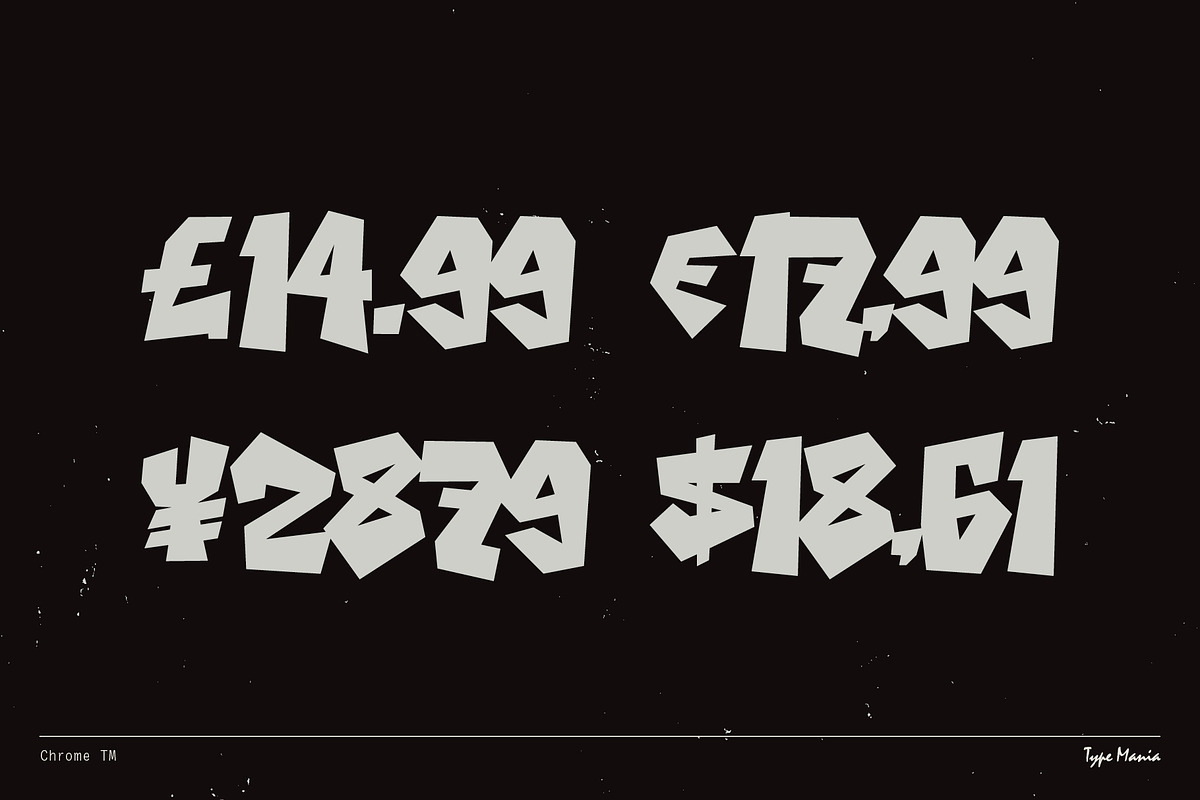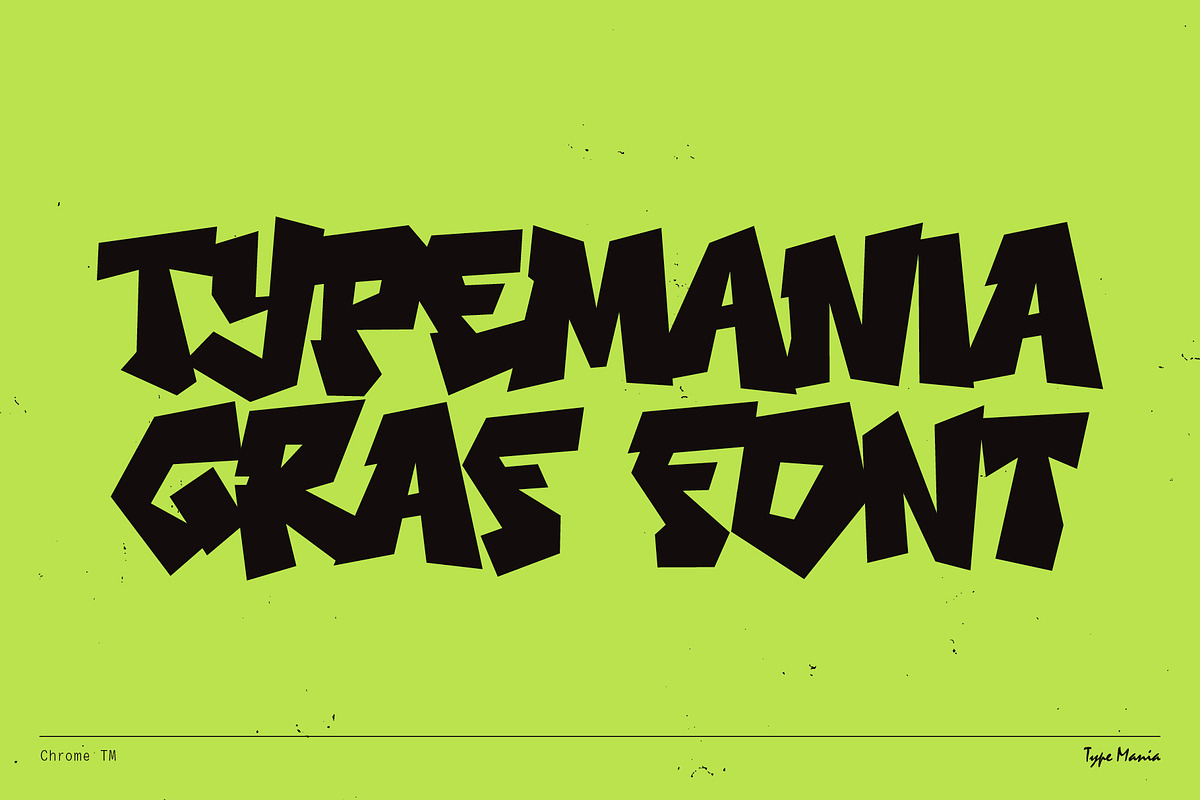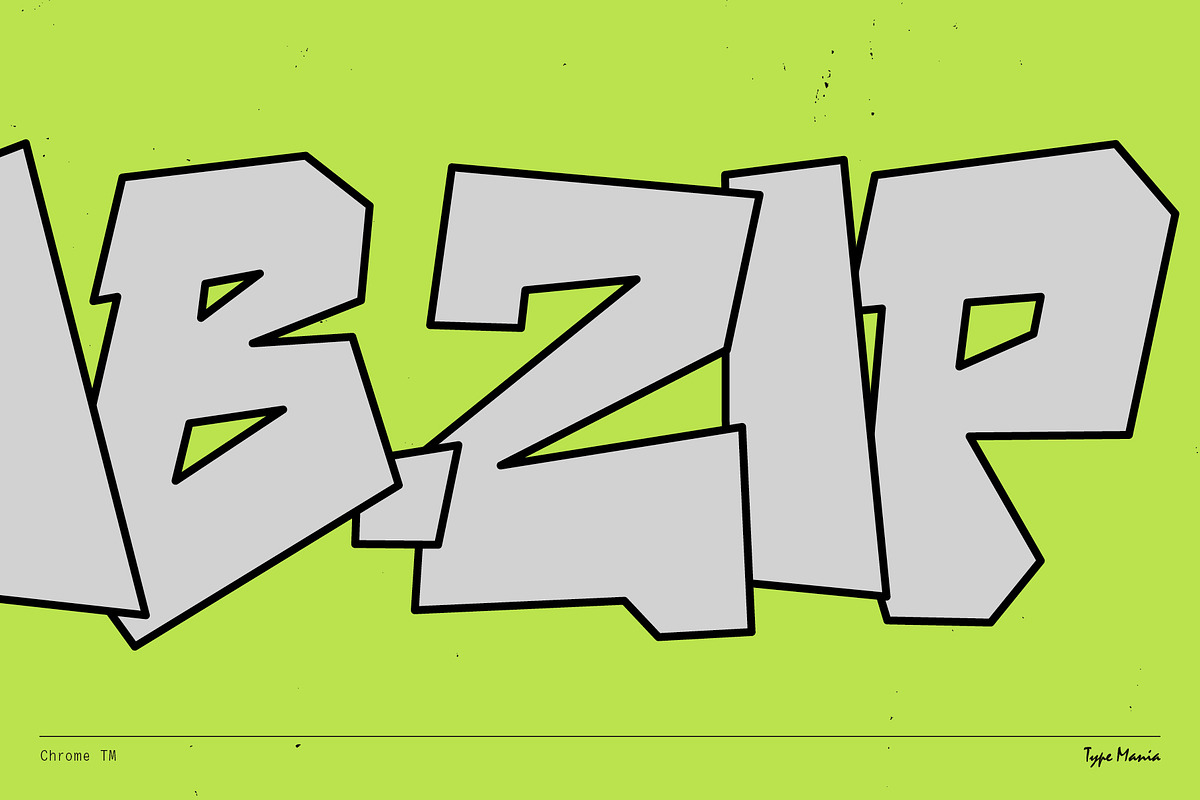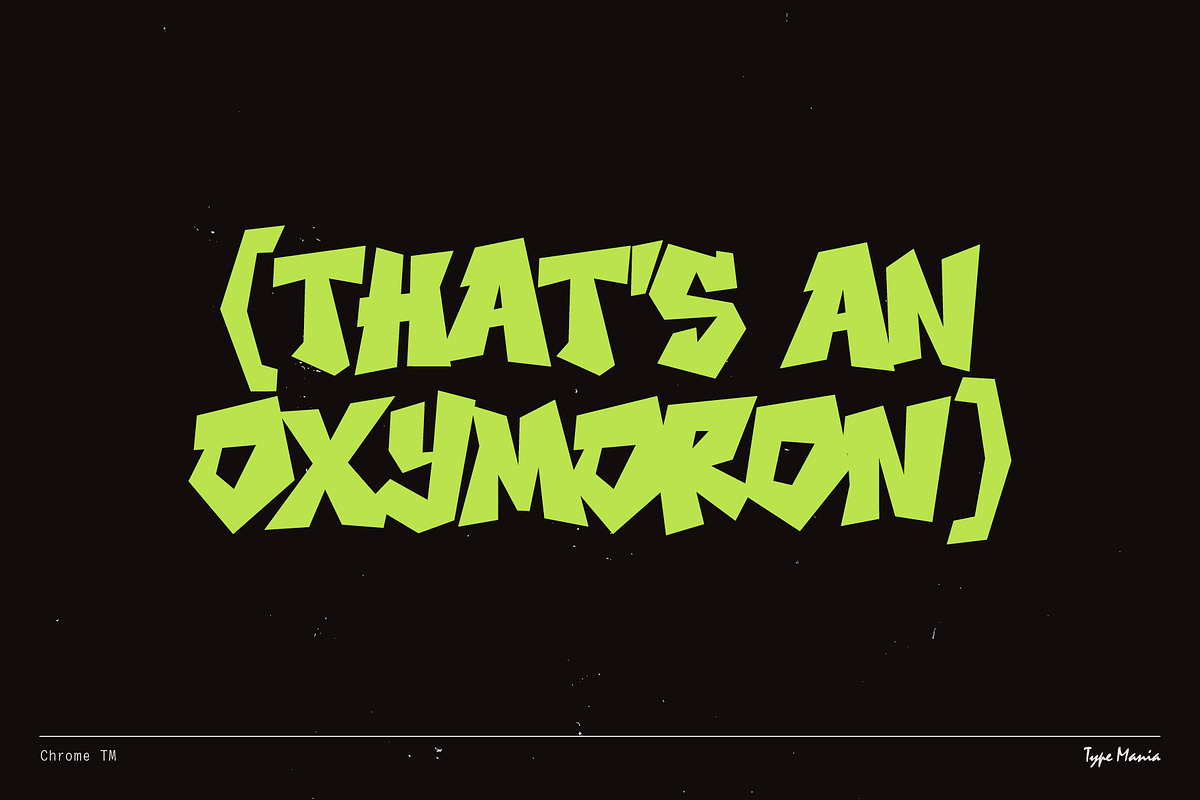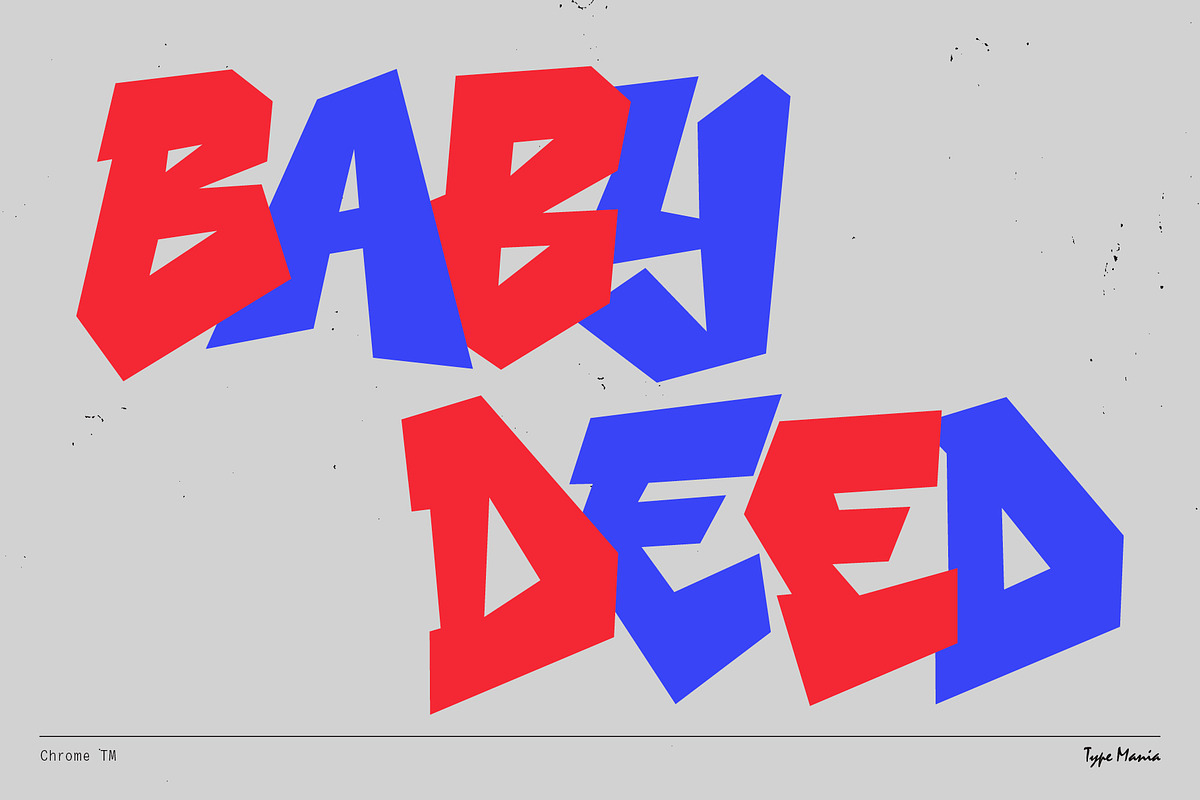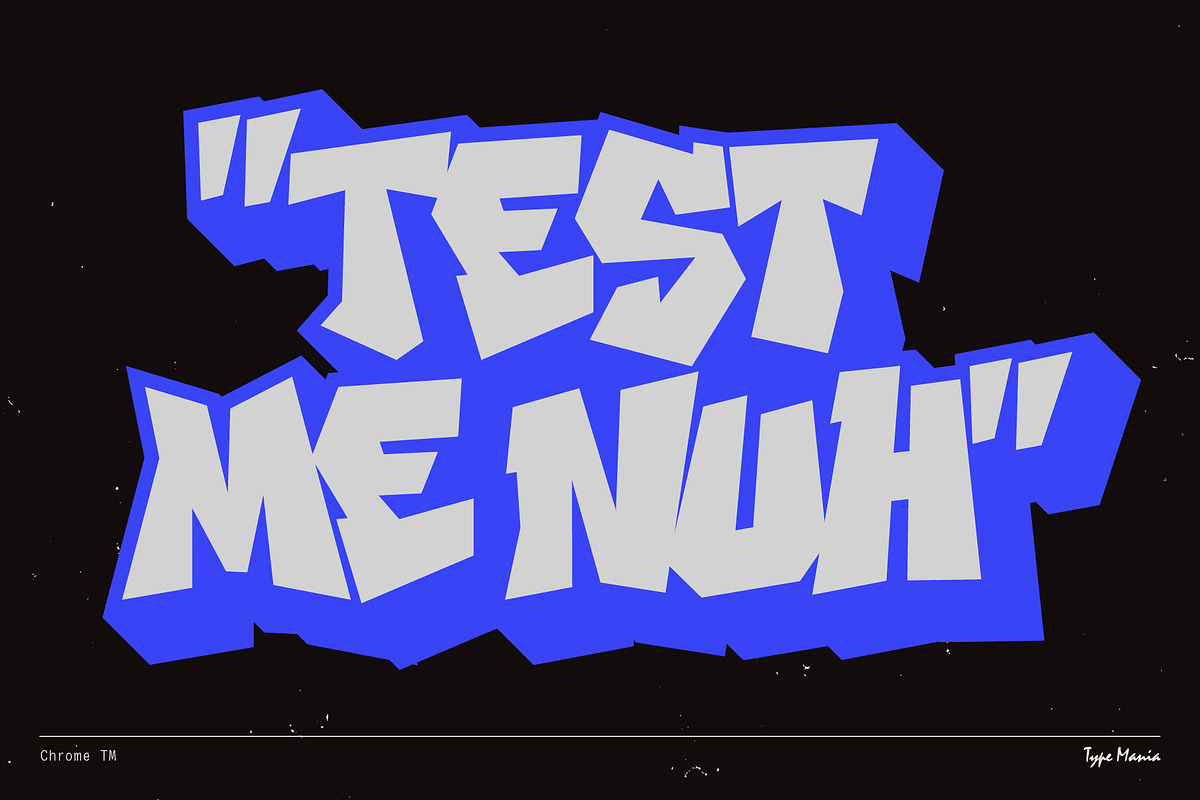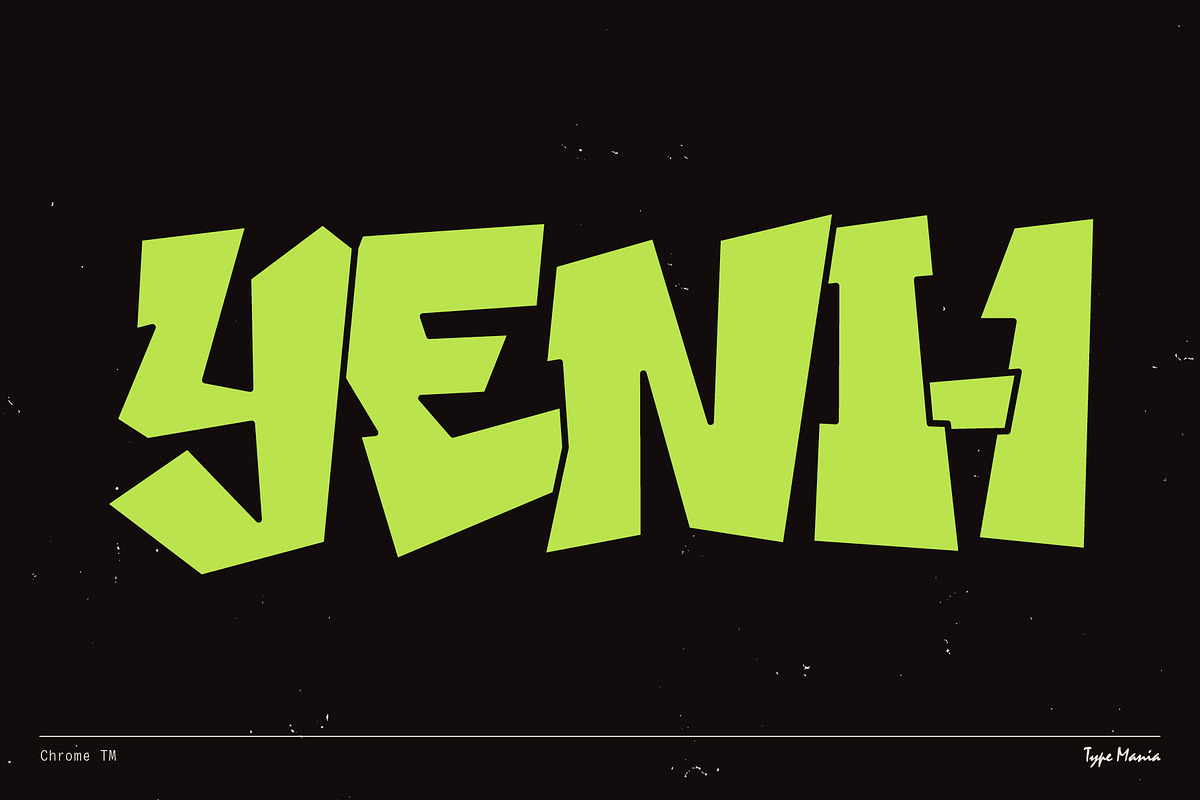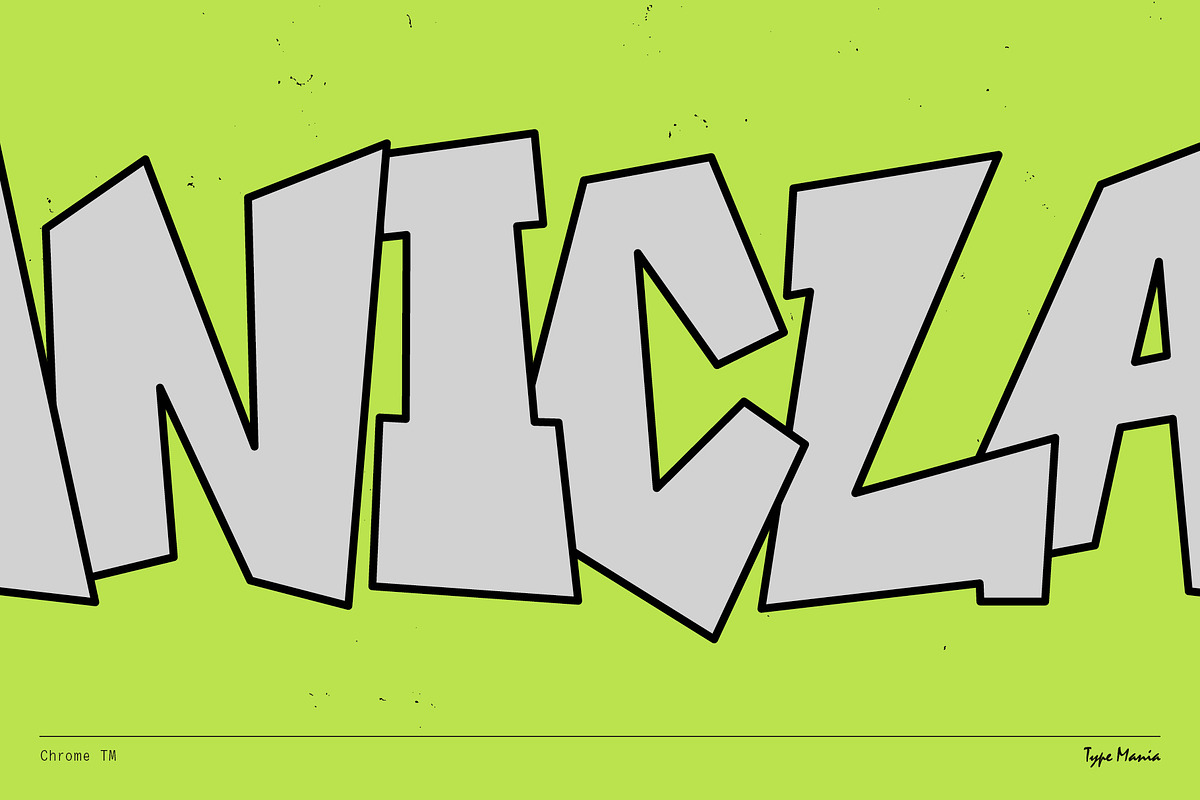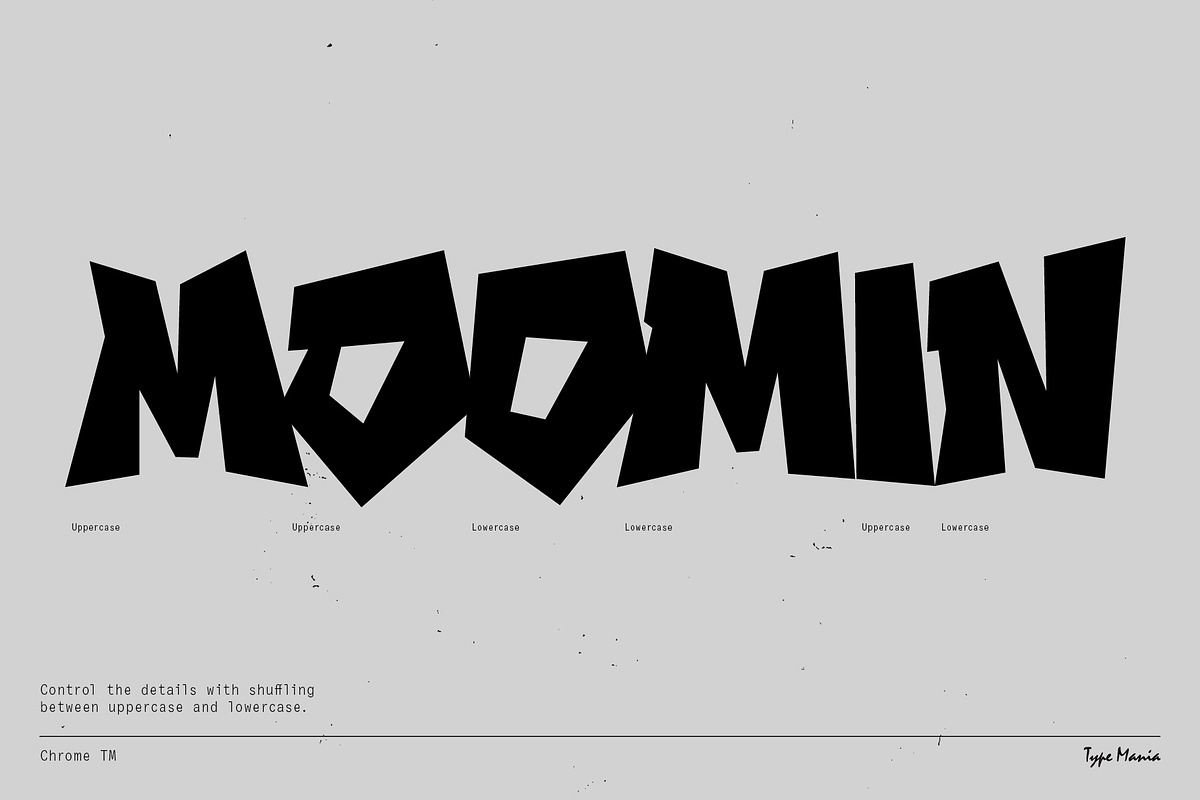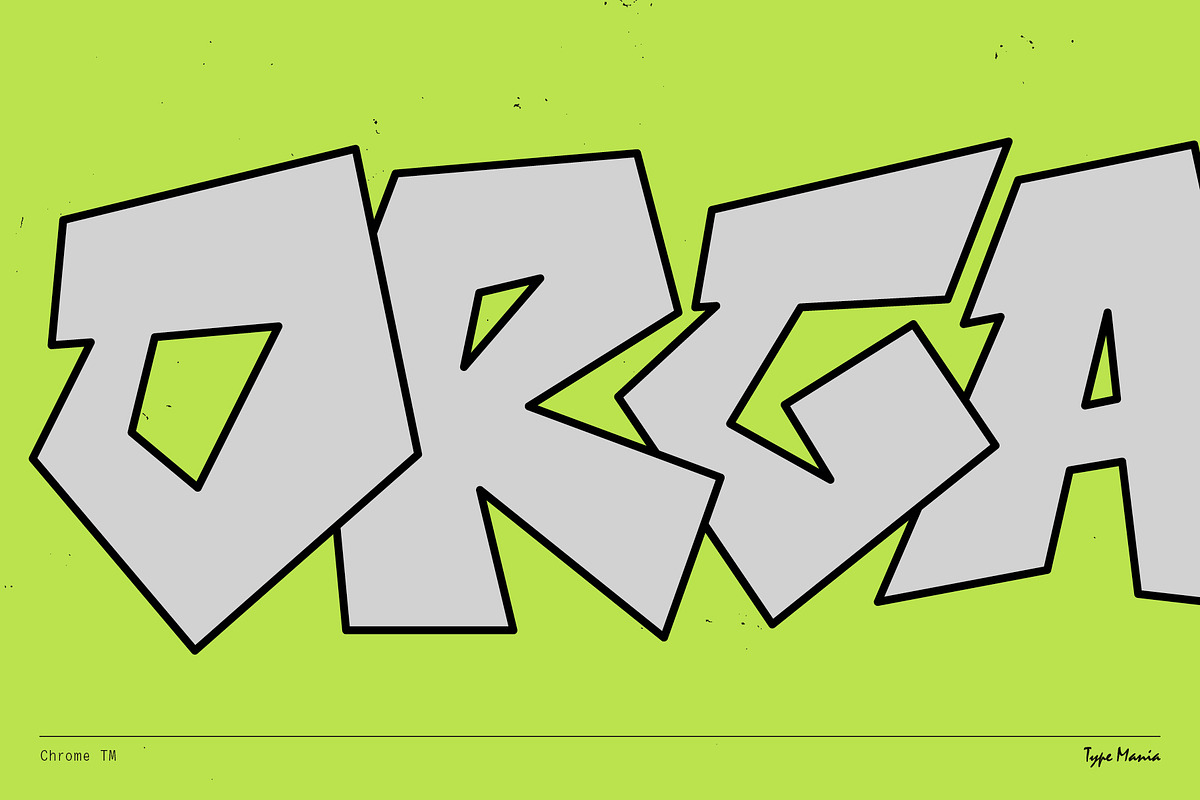
Chrome TM – Graffiti Font
Here it is: Chrome TM – a bold, urban typeface inspired by graffiti lettering. Good for branding, posters, album covers, apparel... what have you. Give it a try and see if it works for your project.